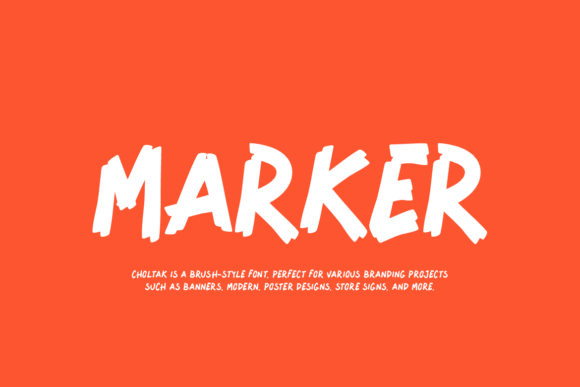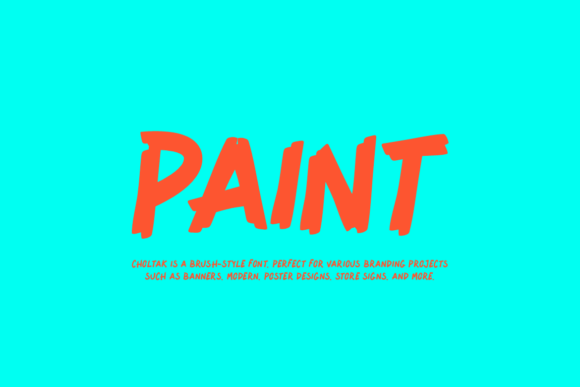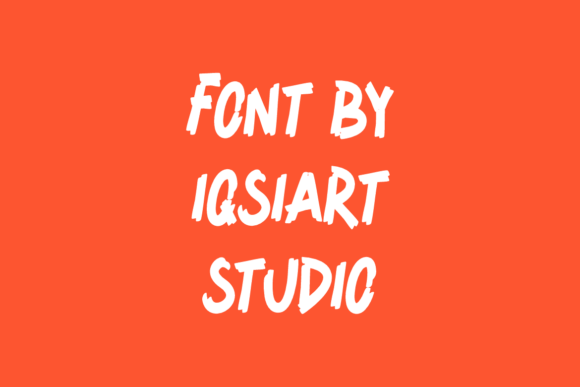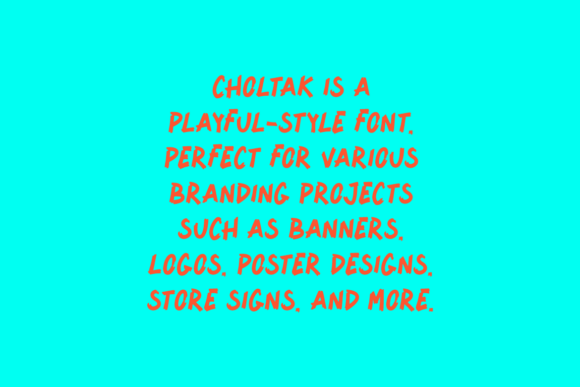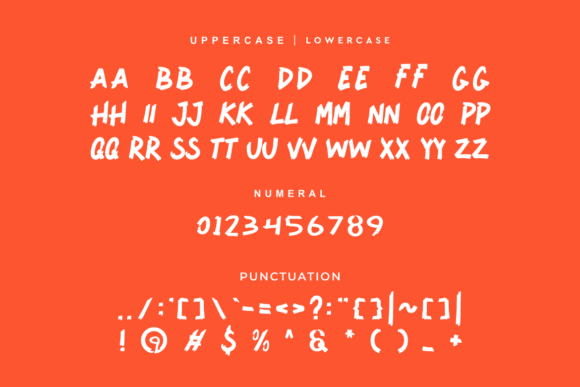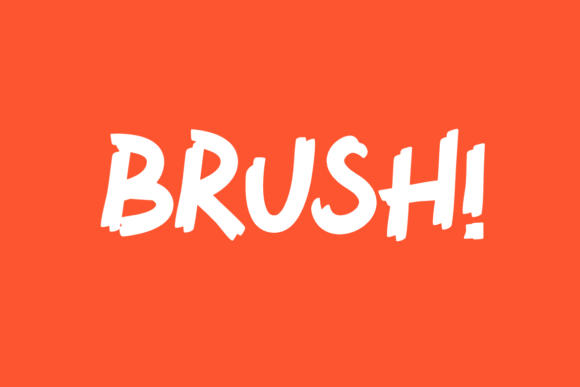
Unleash Your Creativity with Choltak Font: The Raw Brush and Marker Typeface
Are you tired of using the same old fonts in your creative projects? Do you want to add a touch of raw energy and rebelliousness to your designs? Look no further than Choltak Font, a unique and aggressive typeface that’s perfect for edgy streetwear branding, underground music posters, extreme sports graphics, and standout social media headers.
The Unfiltered Energy of Choltak
Choltak Font is a raw brush and marker font that injects your creative projects with an unfiltered energy. Its heavy, spontaneous strokes are characterized by visible bristle textures and an aggressive, hand-painted aesthetic. This typeface is not for the faint of heart – it’s for those who want to make a statement and leave a lasting impression.
A Font that Embodies Rebellion
Choltak Font is designed to deliver a sense of raw, handcrafted intensity and professional creative character to every word. Its chunky visual weight and energetic, uneven baseline make it an extraordinary choice for designers and crafters who want to add a touch of rebellion to their work. With Choltak, your brand will carry an unyielding and rebellious personality that sets it apart from the rest.
Perfect for Edgy Designs
Choltak Font is perfect for a variety of design projects, including:
- Edgy streetwear branding: Add a touch of raw energy to your clothing brand with Choltak’s bold and aggressive typeface.
- Underground music posters: Make your music posters stand out with Choltak’s unique and eye-catching font.
- Extreme sports graphics: Add a touch of rebellion to your extreme sports graphics with Choltak’s bold and energetic typeface.
- Standout social media headers: Make your social media headers stand out with Choltak’s chunky and attention-grabbing font.
What Sets Choltak Apart
So, what sets Choltak Font apart from other typefaces? Here are a few things that make it unique:
- Raw, hand-painted aesthetic: Choltak’s hand-painted aesthetic gives it a unique and organic feel that’s perfect for designers who want to add a touch of rebellion to their work.
- Visible bristle textures: Choltak’s visible bristle textures add a level of depth and tactility to your designs.
- Chunky visual weight: Choltak’s chunky visual weight makes it perfect for designs that need to stand out.
- Energetic, uneven baseline: Choltak’s energetic, uneven baseline adds a touch of raw energy to your designs.
Tips for Using Choltak Font
Here are a few tips for using Choltak Font in your designs:
- Use it sparingly: Choltak Font is bold and attention-grabbing, so use it sparingly to avoid overwhelming your designs.
- Pair it with contrasting fonts: Pair Choltak with contrasting fonts to create visual interest and add depth to your designs.
- Experiment with colors: Choltak Font looks great in bold, bright colors, so don’t be afraid to experiment and find the perfect color for your design.
Choltak Font is a unique and aggressive typeface that’s perfect for designers and crafters who want to add a touch of raw energy and rebelliousness to their work. With its hand-painted aesthetic, visible bristle textures, and chunky visual weight, Choltak is sure to make your designs stand out. So why settle for a boring, generic font when you can unleash your creativity with Choltak Font?